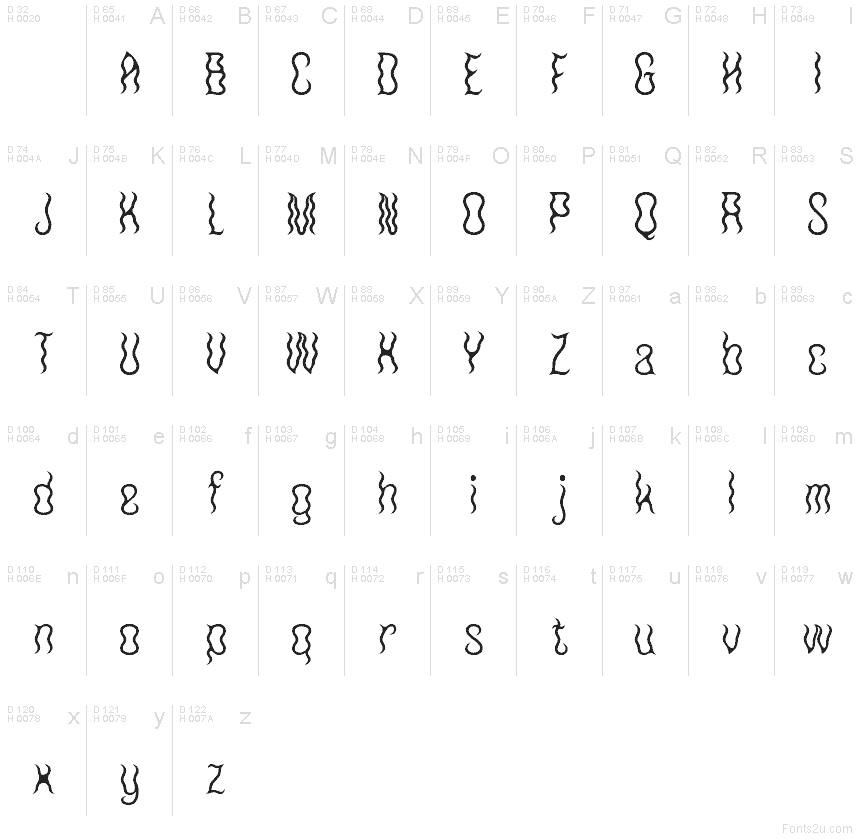
CSCausticDrawn-Regular Demo
CS Caustic Drawn font by Craft Supply Co. lends its illustration-friendly script for your exotic projects. The decorative display characters have an artistic and organic handwriting look with slight dots at the ends of strokes. It is both mysterious and historic, but the light weight makes it easy on the eye and less intimidating to observers.
This free display modern font has a wide variety of uses including decorative headings, exquisite invitation cards, modern wall posters, social media cover pages, clothing tags design, visual needs for clothing brands, logo design projects or just fonts for calling particular attention to any idea using text.